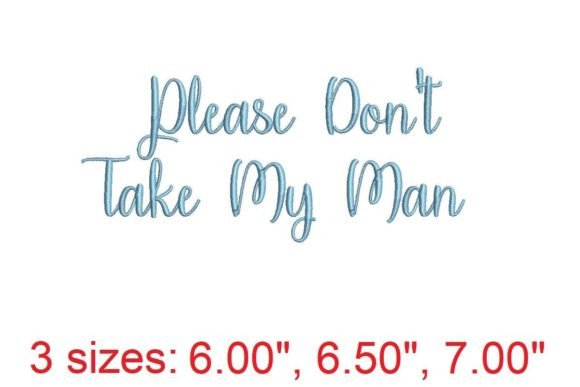
Please Don't Take My Man Embroidery Font
As an embroidery designer with years of experience, I've seen countless fonts come and go. But one that consistently stands out is the Please Don't Take My Man Embroidery Font. This design isn't just a font—it's a statement. It adds a bold, sassy edge to any project, making it perfect for holiday and seasonal use.
The First Impression: A Bold Statement with Personality
When I first laid eyes on the Please Don't Take My Man Embroidery Font, I was immediately drawn to its unique blend of sass and charm. The font carries a playful yet confident tone, ideal for expressing personality in handmade gifts or personalized items. Its decorative style is rich in detail, with subtle flourishes that add visual interest without overwhelming the design.
This font works especially well in a cozy or playful seasonal mood. It’s not overly formal, which makes it great for casual home decor or family-oriented items. Whether you're creating a holiday sweater or a festive kitchen towel, the Please Don't Take My Man Embroidery Font brings a sense of fun and individuality to the piece.
Real-World Use: From Etsy Listings to Craft Fairs
As an Etsy seller, I know how important it is for a design to stand out in a crowded marketplace. The Please Don't Take My Man Embroidery Font has proven to be a valuable addition to my seasonal product collection. It works well on a variety of items, from sweatshirt embroidery to tote bag design, and even kitchen towel embroidery.
During the holiday season, customers are often looking for something unique and personal. The Please Don't Take My Man Embroidery Font allows for creative expression while maintaining a level of sophistication. It's perfect for personalized gifts and handmade gifts that feel special and thoughtful.
I’ve used this font in holiday embroidery projects for family matching items, such as coordinating sweatshirts or aprons. It also pairs well with seasonal embroidery themes like back-to-school or winter celebrations. The font's versatility makes it a go-to choice when designing for limited-time product drops or gift bundles.
Where to Use It Carefully: Practical Considerations
While the Please Don't Take My Man Embroidery Font is visually striking, there are some situations where it may not perform as well. For instance, it can be challenging to use on small hoop sizes or tiny lettering due to the intricate details. If you're planning to use it on a patch or a curved cap, you'll need to adjust the design accordingly.
Additionally, the font may not be ideal for thick towels or dark fabric if the thread colors aren't chosen carefully. I recommend testing different thread colors on both light and dark fabrics before finalizing your design. It’s also important to consider stitch density and use the right stabilizer to ensure the design holds up during repeated washing.
If you're using metallic thread or working with stretchy garments, you may need to make adjustments to maintain the integrity of the machine embroidery design. Always review small details after stitching to ensure everything looks as intended.
Impact on Seasonal Appeal and Customer Engagement
The Please Don't Take My Man Embroidery Font has a strong emotional appeal, especially during the holidays. It adds a sense of confidence and personality that resonates with many customers. This type of design can significantly boost the giftability of your products, as it allows buyers to express their own style through customized items.
For small shop products, this font helps create a memorable brand identity. It supports brand consistency across different items, whether you're selling pillow cover designs or embroidered patch kits. Customers are more likely to trust and return to a shop that offers unique, high-quality designs.
When it comes to social media previews or printable mockup graphics, the Please Don't Take My Man Embroidery Font is eye-catching and easy to showcase. It adds visual interest to your listings and can help drive engagement during peak shopping periods.
Designer Notes: Tips for Success
As someone who regularly works with digital embroidery files, I always emphasize the importance of preparation. Before using the Please Don't Take My Man Embroidery Font, make sure to check the hoop size and confirm that the design fits within your machine's capabilities. It's also essential to plan your color palettes ahead of time to ensure the final product looks polished and professional.
Creating realistic mockups is another key step. This helps you visualize how the design will look on different fabrics and items. Additionally, always verify the commercial licensing terms before selling finished products, especially if you're an Etsy seller or running a small business.
Finally, don’t forget to test your stitch density and fabric texture. These factors can greatly impact the overall quality of your seasonal embroidery projects. By following these best practices, you can ensure that your use of the Please Don't Take My Man Embroidery Font is both effective and enjoyable.